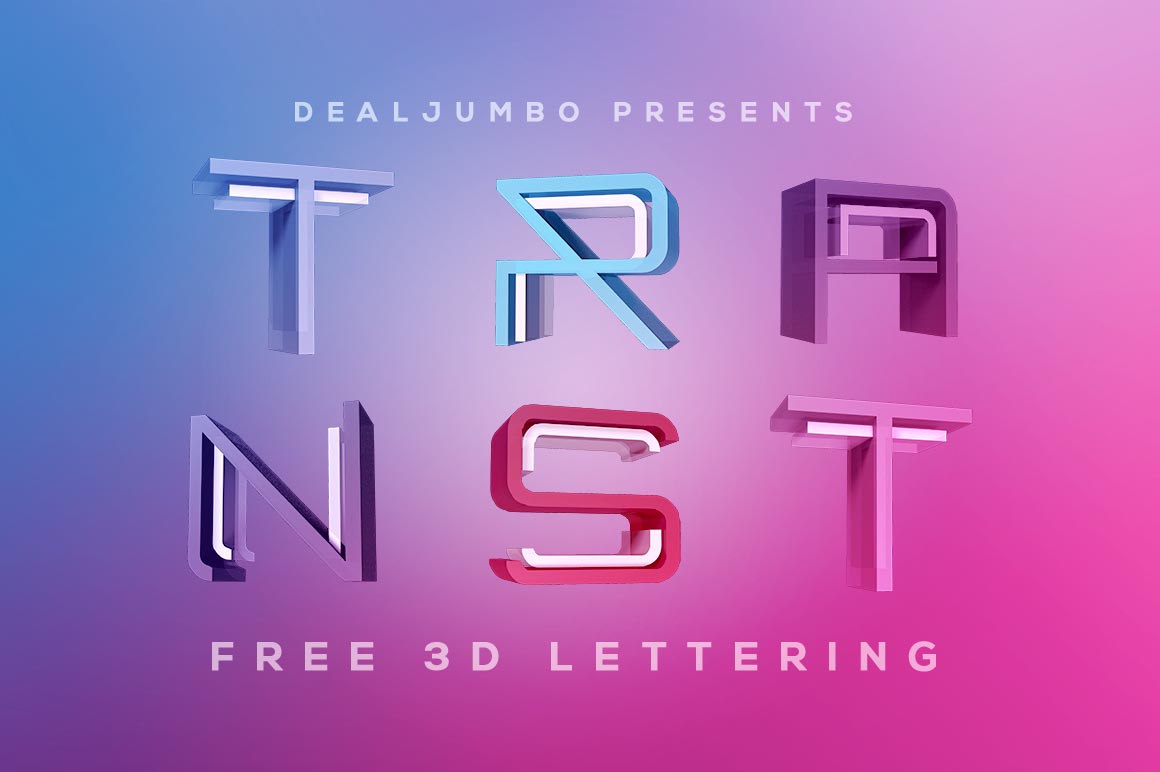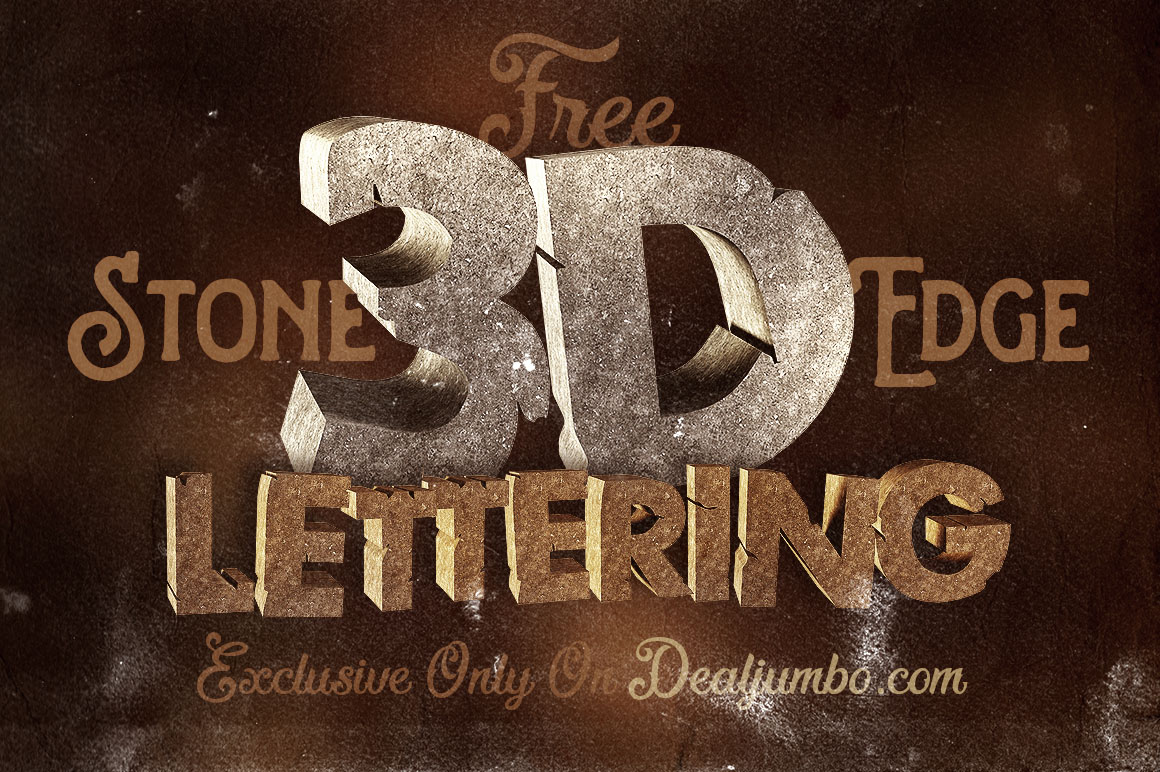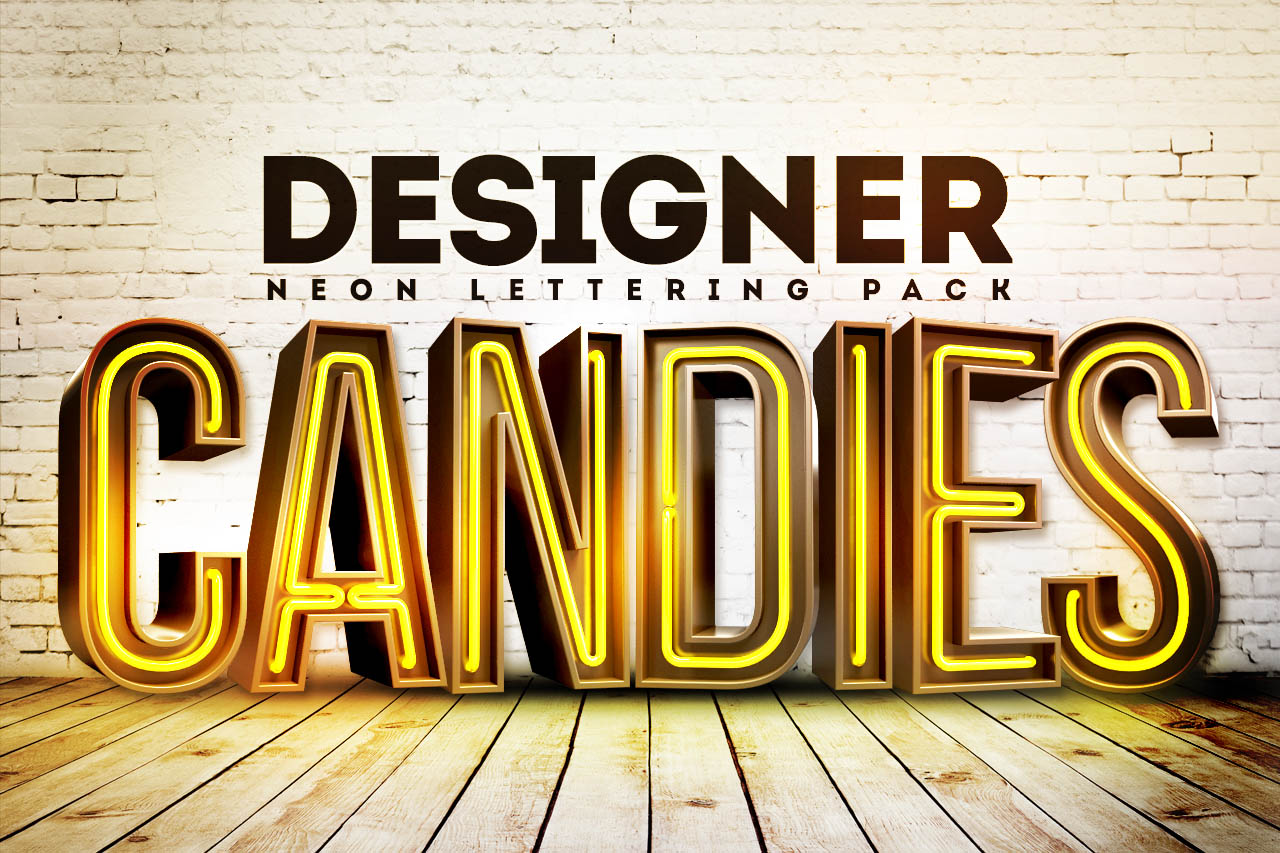
3D Font Pack Download. The font is designed with inspiration from retro video games. This free fonts collection also offers useful content and a huge collection of truetype face and opentype font families categorized in alphabetical order.
3D Metal Lettering Free Pack
There we always notice one thing font, different fonts make word and syntax more beautiful. 2,134 best 3d font pack free brush downloads from the brusheezy community. The letters look like a real, slightly illegible handwriting.
Best free photoshop fonts #32 monpance. Since you are seeking a collective range of 3d text mockup designs, we think these smart objects are worth trying. Add in some lighting flares and shadows, mix the letters with varying size, reflection and rotation to create unique combinations and seriously exciting designs.
The Letters Look Like A Real, Slightly Illegible Handwriting.
Download (26044) view font details. 3d fonts provide a visual depth, and mimic 3d modeling in a 2d screen. Well, now you can with 3d text effects v1, which will turn your text into a 3d block letter font in seconds.
Among Free Fonts For Designers, This One Is Surely The Most Unusual.